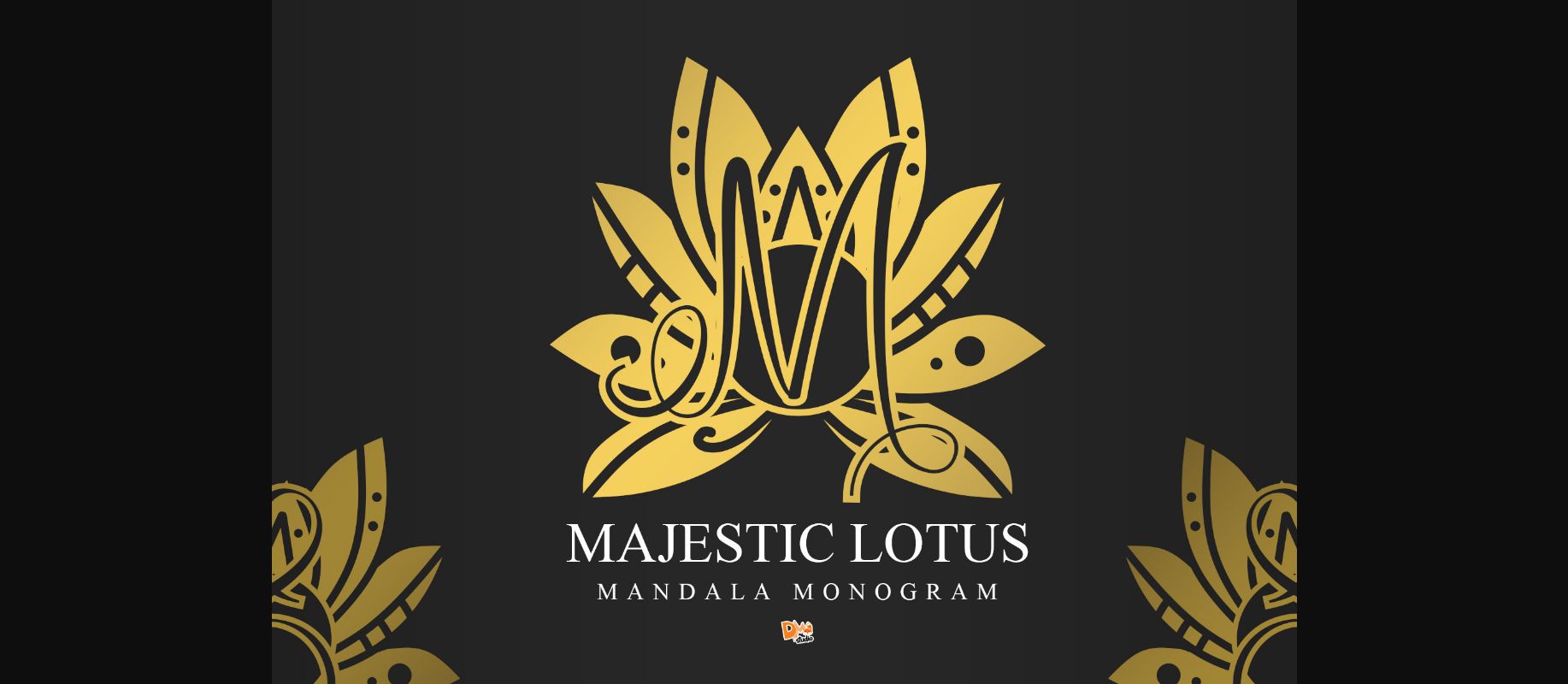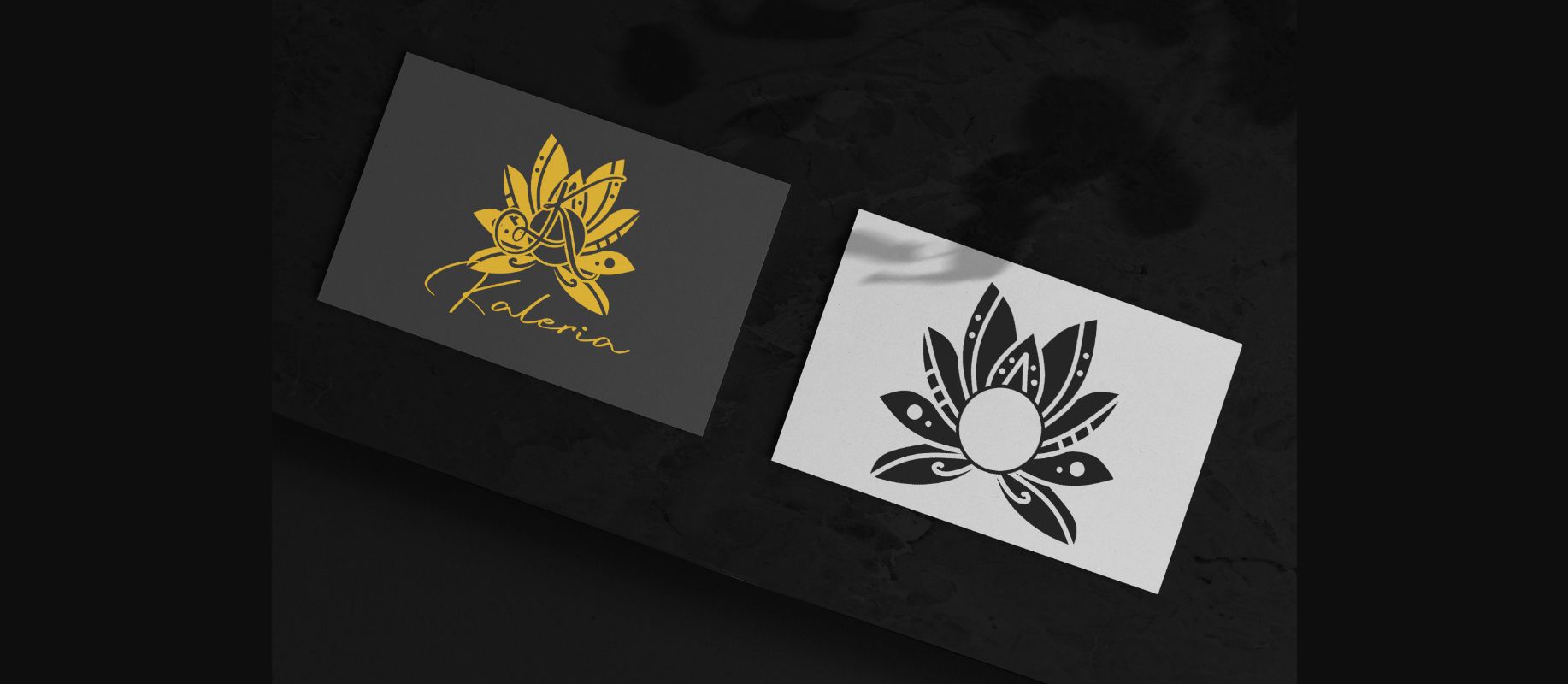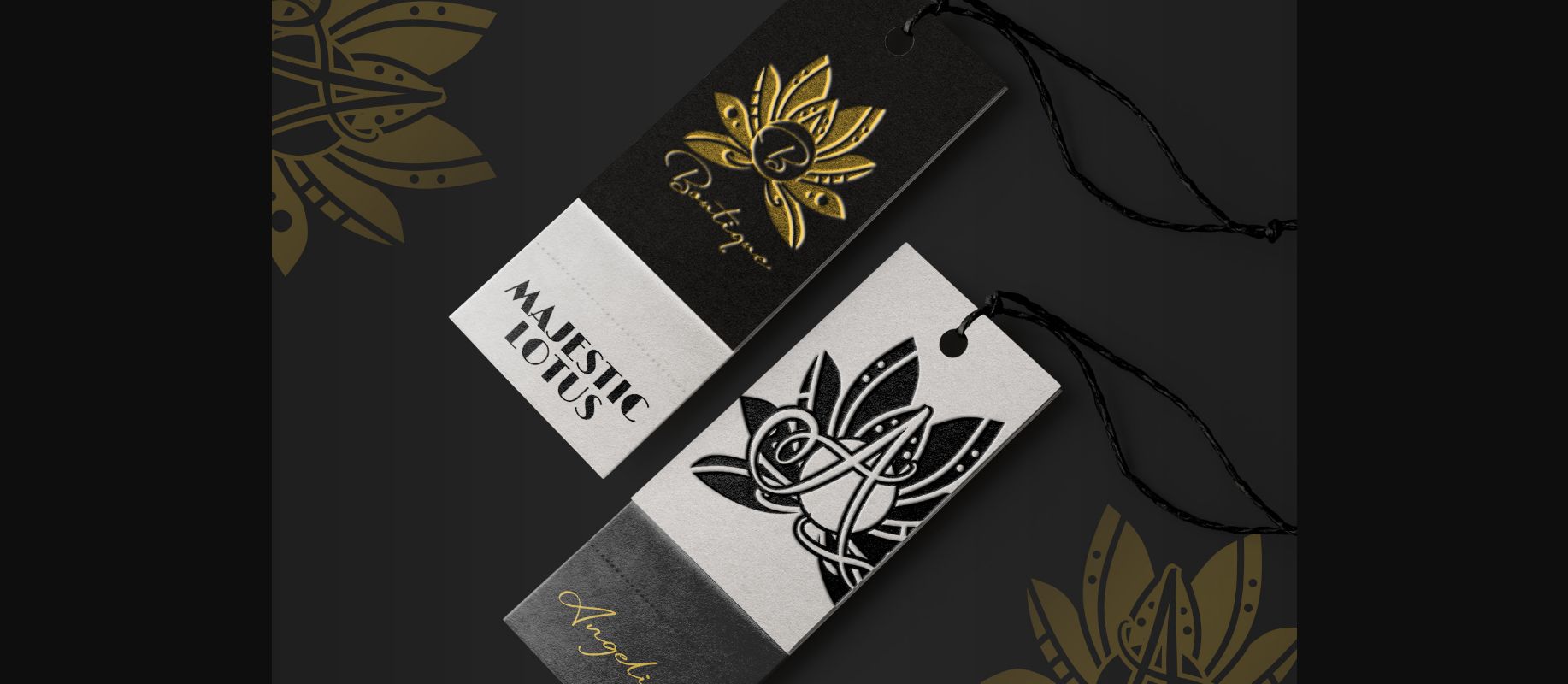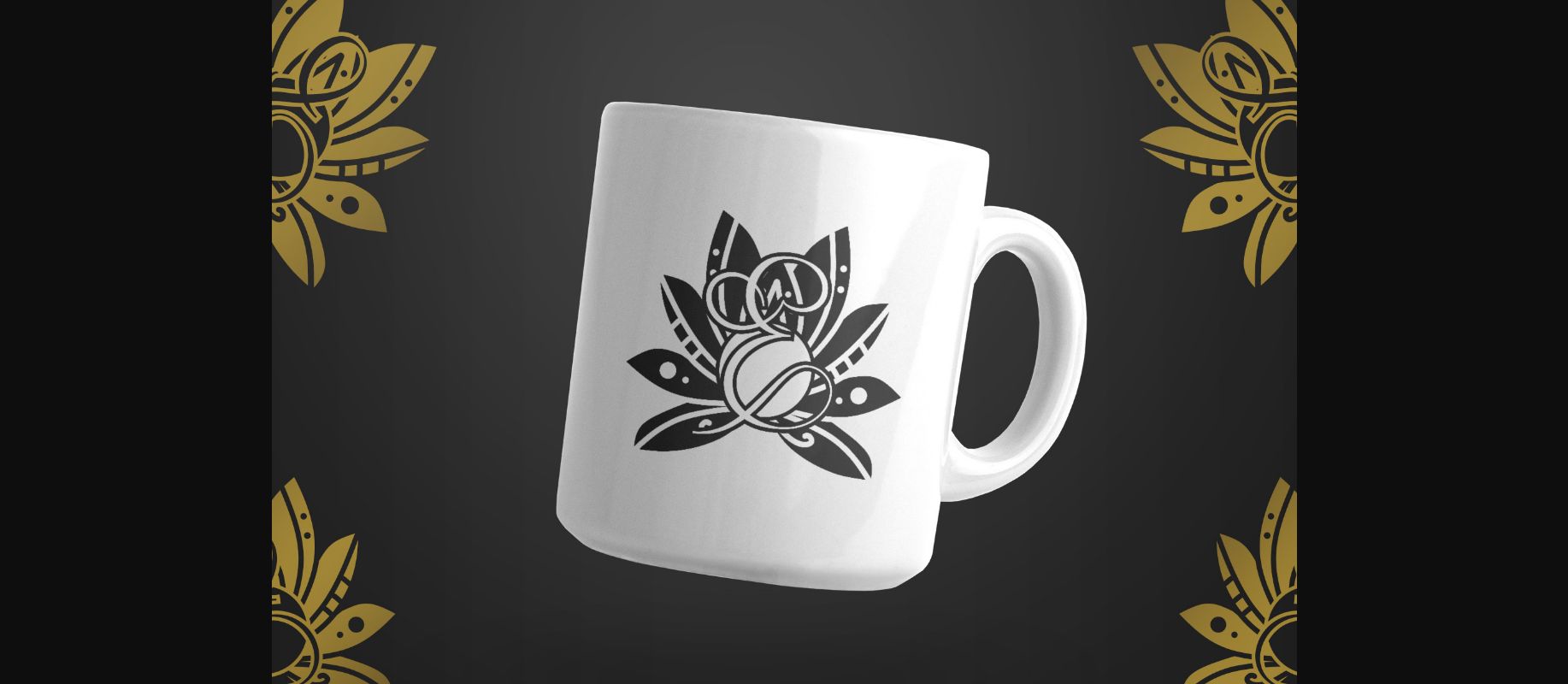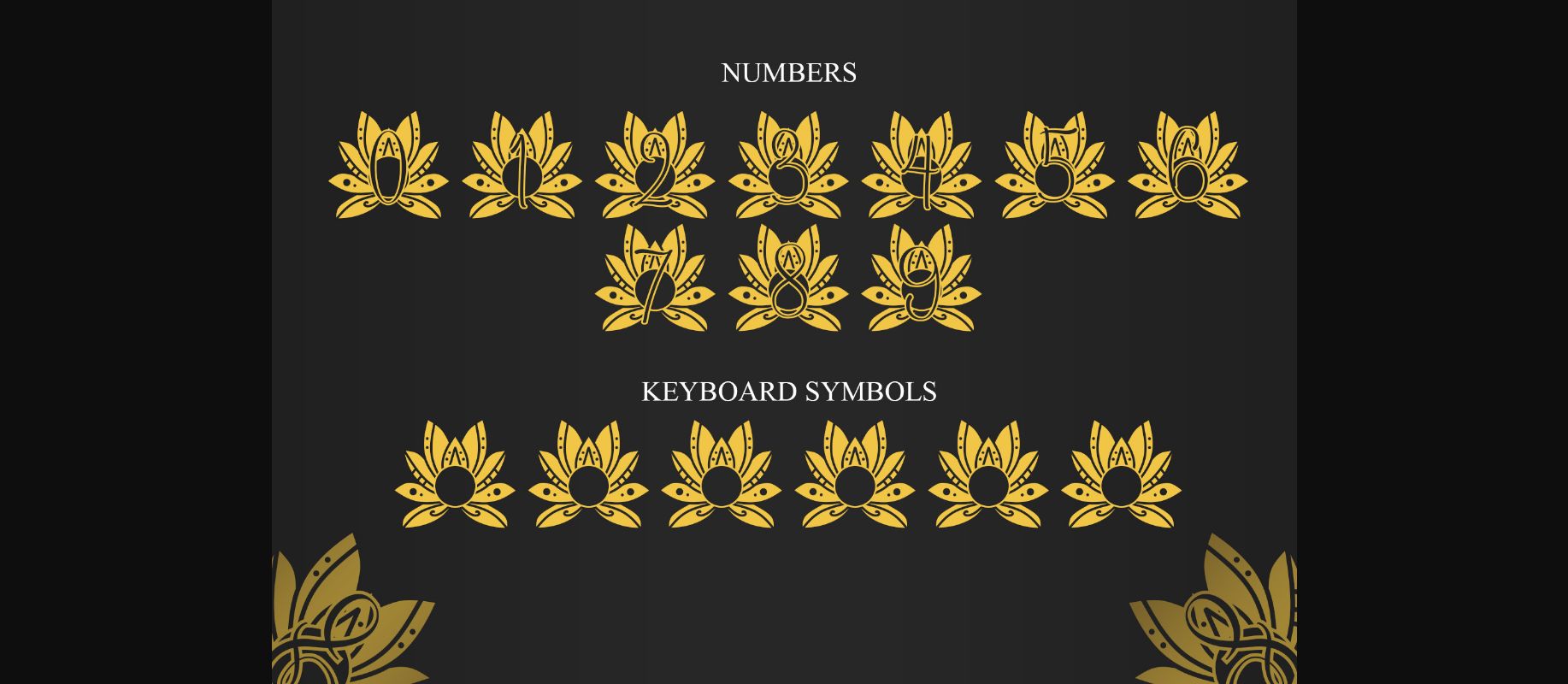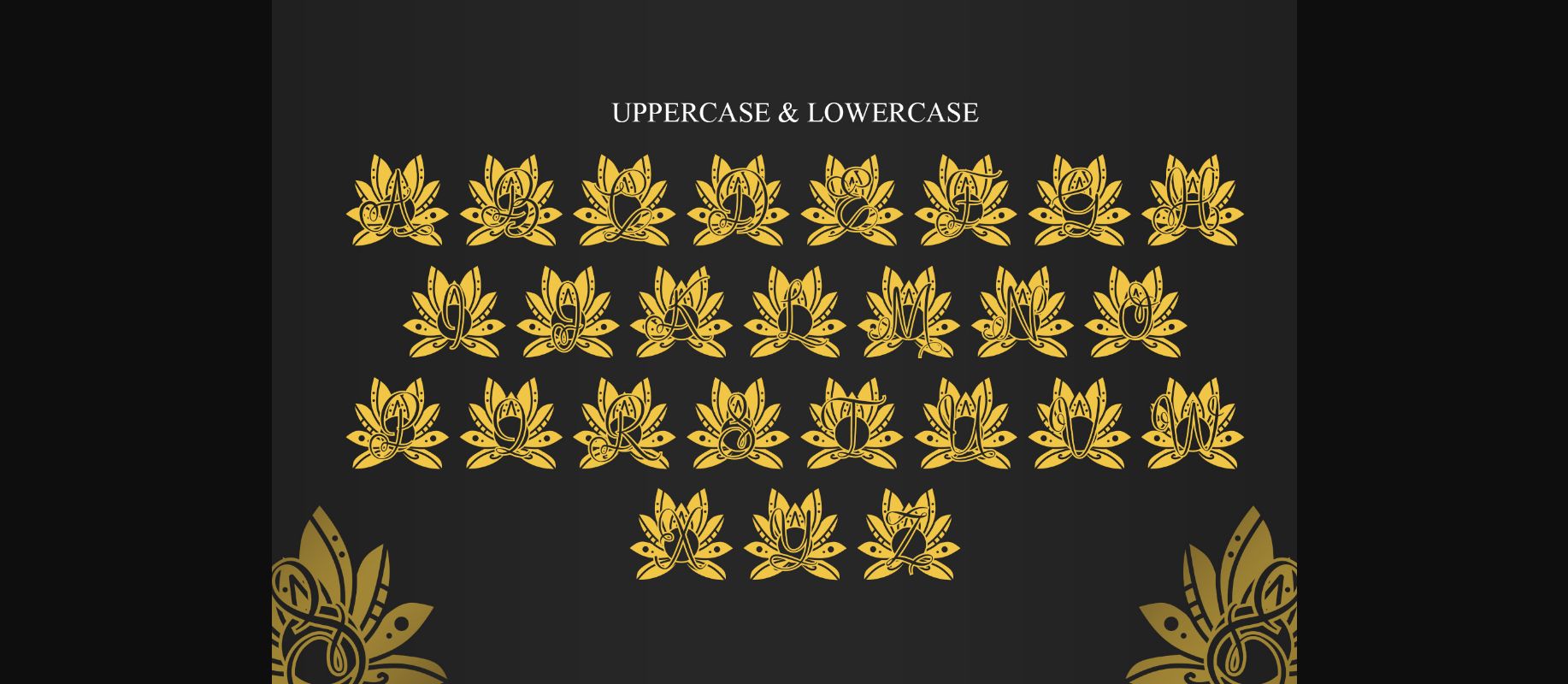
Majestic Lotus Mandala Monogram Font
About Majestic Lotus Mandala Monogram Font
Majestic Lotus Mandala Monogram is a unique and stylish decorative font inspired by the elegance of the lotus flower. Use it for your craft, logo, or anything you can think of!